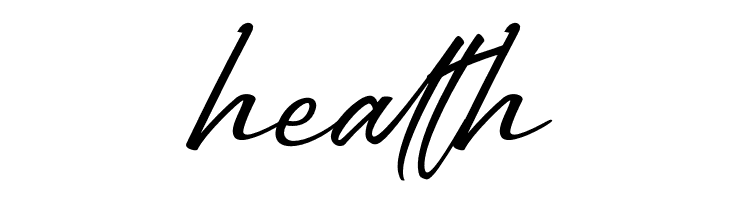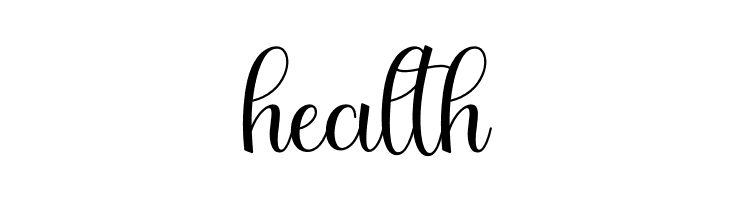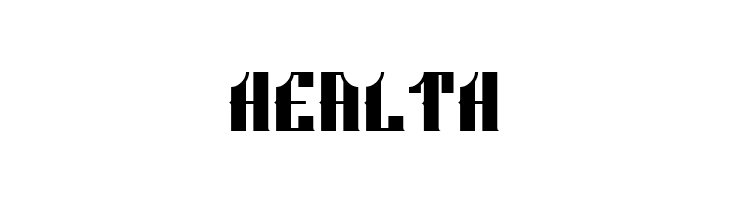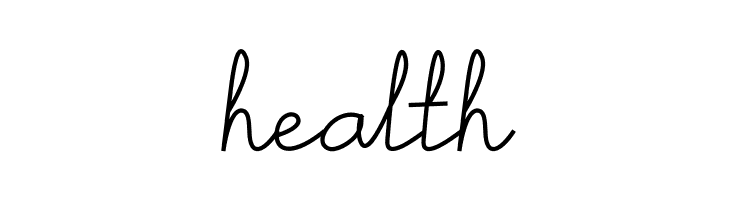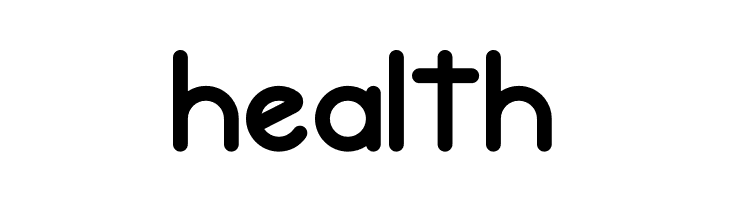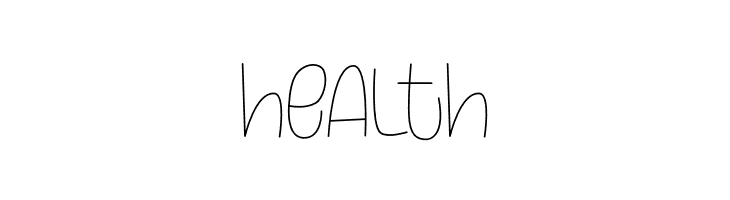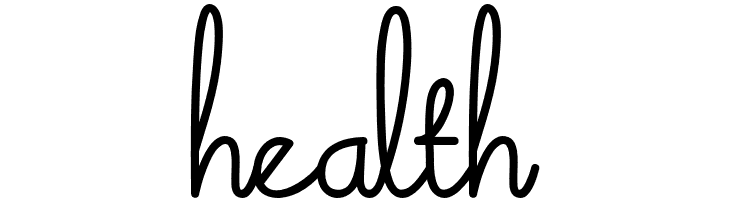
A fluid and elegant handwritten script font with a personal touch.
An elegant script font with intricate swirls and decorative flourishes.
A bold, playful handwritten font with a casual and dynamic style.
A bold, blackletter-style font with sharp, angular lines and intricate details.
A playful, handwritten font with fluid, irregular strokes.
A playful, rounded font with smooth curves and consistent stroke width.
A playful, handwritten font with tall, narrow letters and a casual style.
An elegant and sophisticated script font with flowing cursive strokes.
A playful, handwritten-style font with smooth, rounded edges and a casual vibe.
A playful and whimsical font with curly, looping strokes and elegant flourishes.